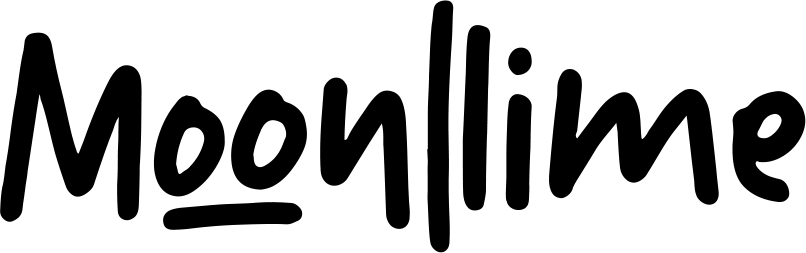
Moonllime Font
Creating a unique personality in your context is hard, first, you need a font imbued with a sense of personal touch, and there is no font more special than a script font. We offer you Moonllime which is an incredible example of script font.
In this awesome collection, you will find both the uppercase and lowercase of the alphabet and the numbers but you won’t get any punctuation marks from this font.